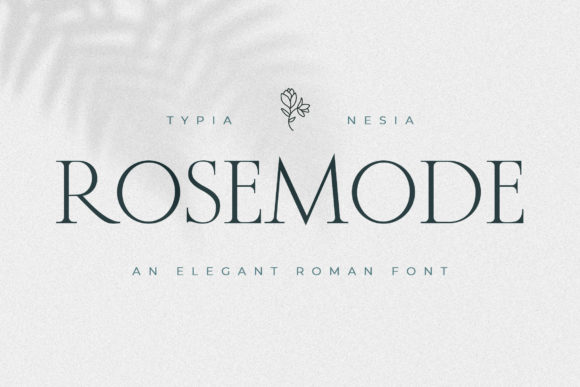
Introducing Rosemode Font, a stunning and sophisticated serif font that will take your projects to the next level. Designed by the renowned Typia Nesia, this font is the perfect choice for anyone looking to add a touch of elegance and charm to their work.
With its delicate and slender lettering, Rosemode Font is perfect for a wide range of applications. Whether you're looking to create beautiful greeting cards, eye-catching headlines, or elegant invitations, this font has got you covered. Its timeless beauty and classic style will add a touch of sophistication to any project.
But Rosemode Font is not just beautiful, it's also incredibly versatile. Whether you're designing for print or digital, this font will work seamlessly across all platforms. And with its wide range of weights and styles, you can create a truly unique and personalized look that will stand out from the crowd.
But what really sets Rosemode Font apart is the emotional connection it creates. With its romantic and elegant style, this font will evoke feelings of love, passion, and sophistication. It's perfect for wedding invitations, love letters, and any project that requires a touch of romance.
In conclusion, if you're looking for a beautiful and versatile font that will add a touch of elegance and romance to your next project, then look no further than Rosemode Font. Created by Typia Nesia, this font is the perfect choice for anyone looking to elevate their designs and make a lasting impression.